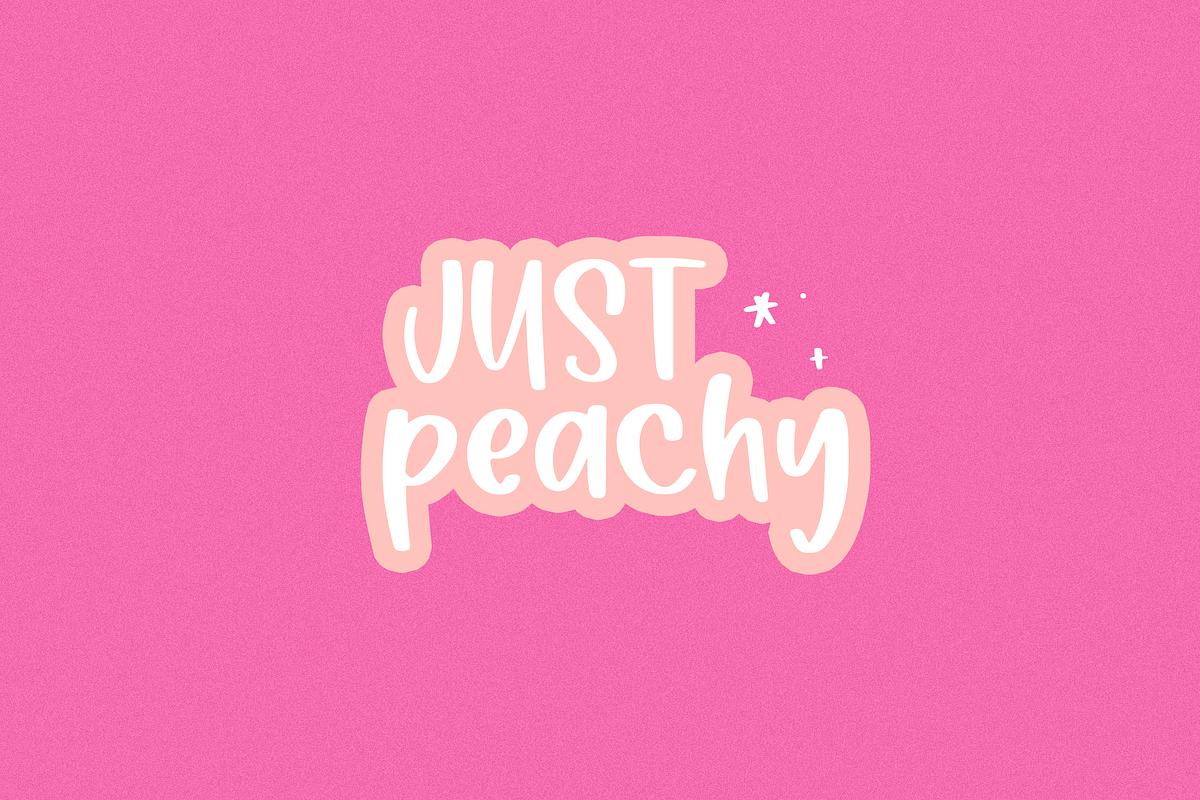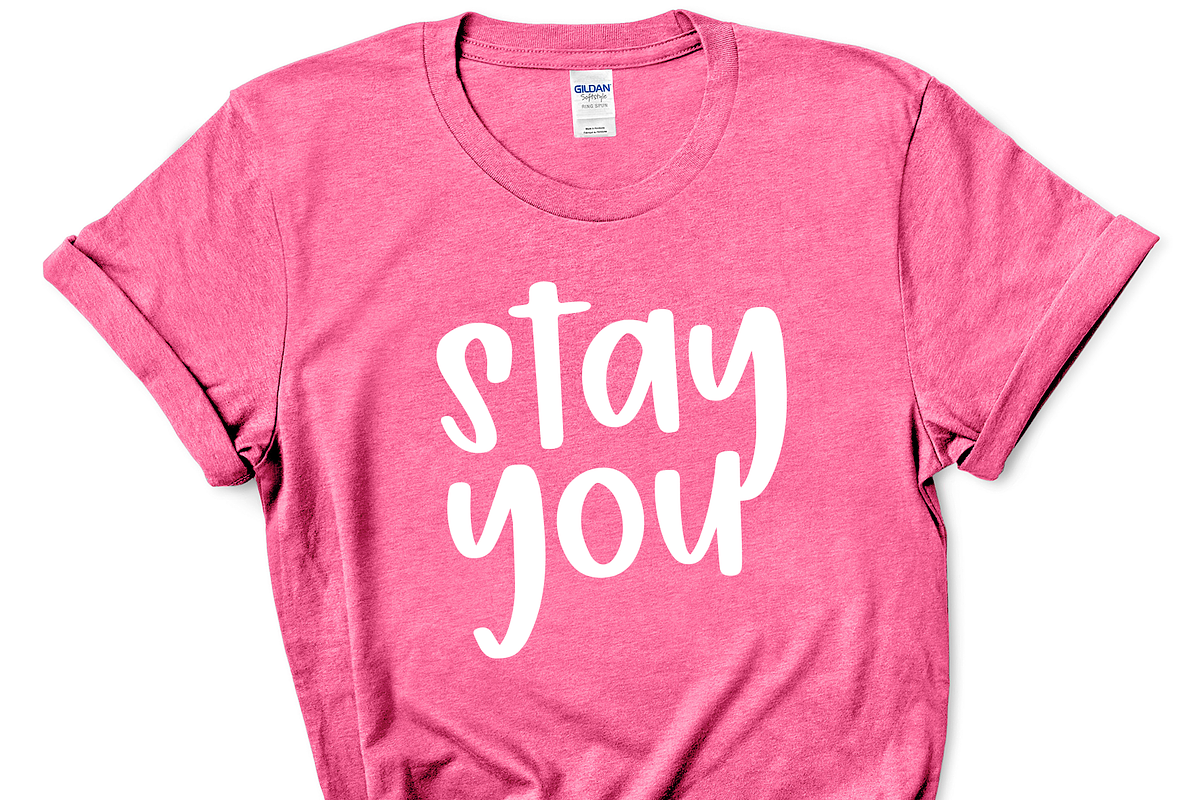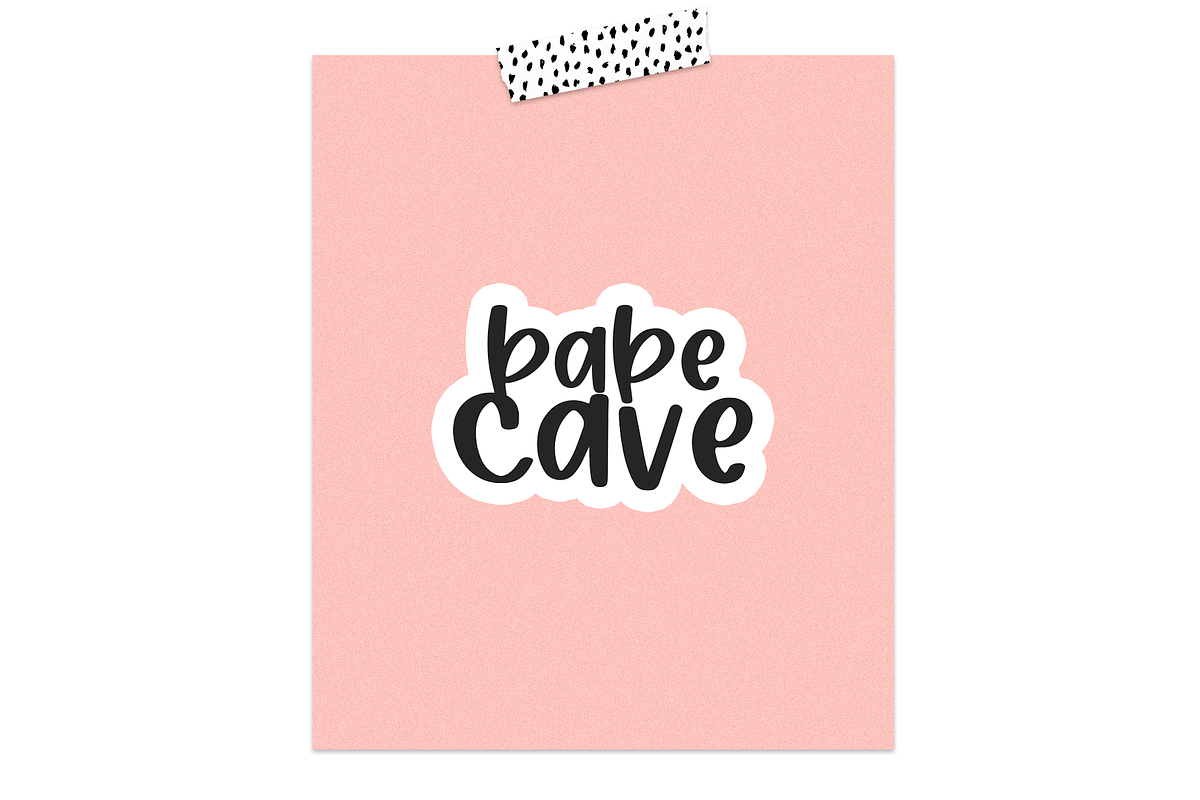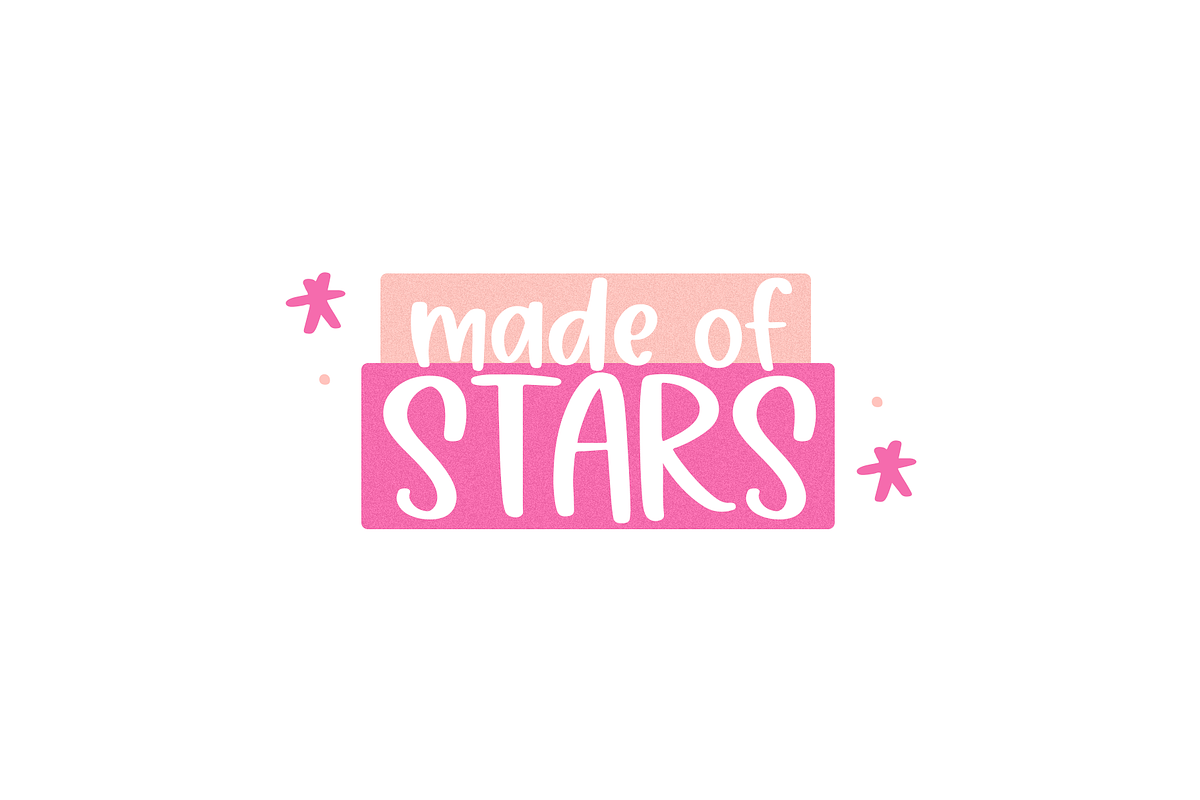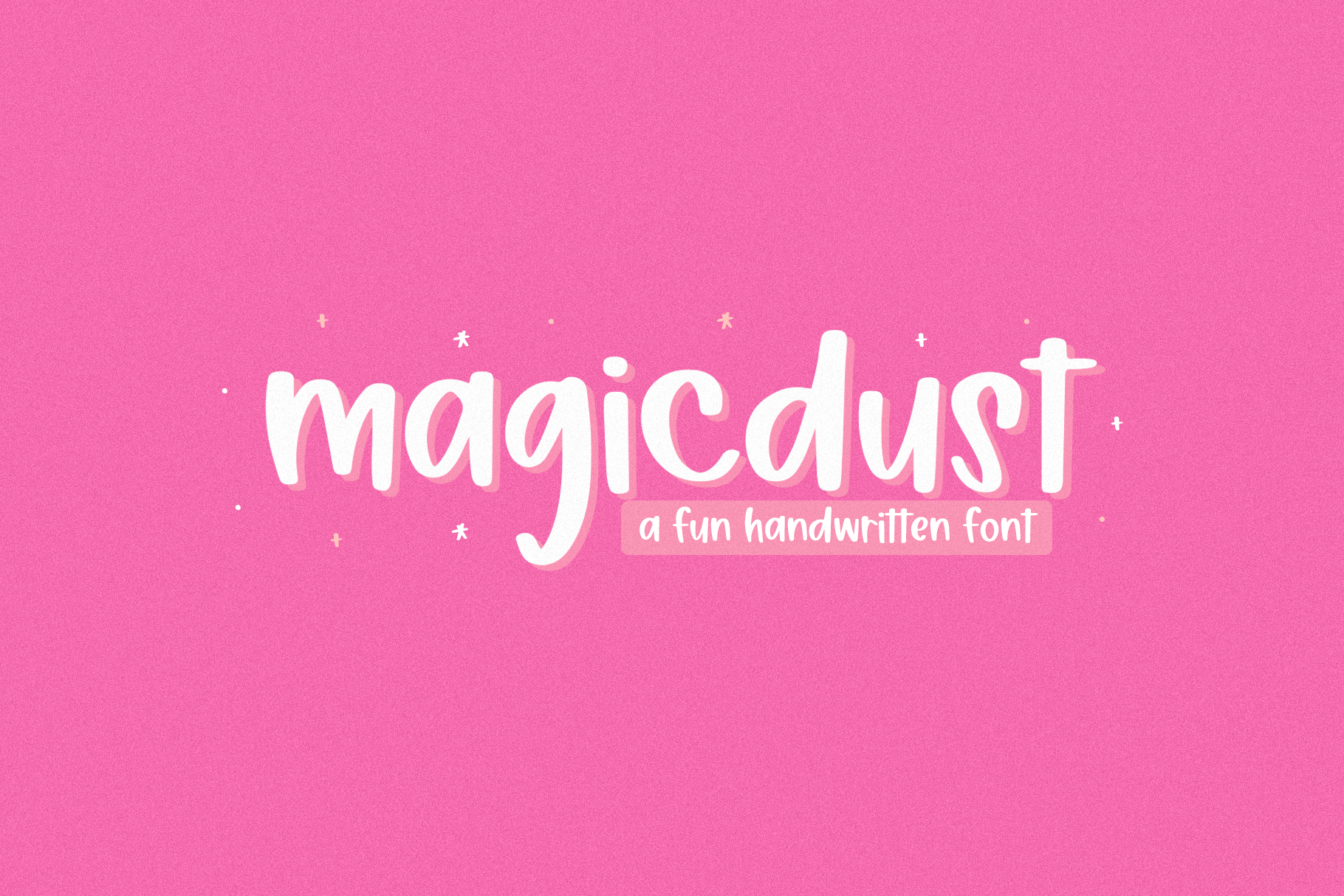
Magicdust | Fun Handwritten Font
Magicdust is a fun handwritten font!
This font is perfect for your procreate designs, logos, branding, cricut projects, svg designs, invitations, social media and more!